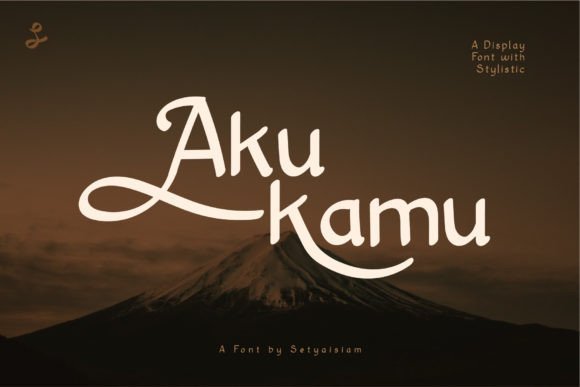
Enter Akukamu Font, a delightful handwritten font designed to add a playful touch to your designs. With its quirky charm and endearing imperfections, this font is perfect for cartoon-related projects, children’s games, or any creation that requires a dash of whimsy. Whether you’re a seasoned designer or a budding artist, Akukamu Font is an invaluable addition to your toolkit, offering endless possibilities for creative expression and bringing your imagination to life.
Akukamu Font Key Features
- Font Family: Akukamu Font offers a unique blend of traditional and modern elements, making it suitable for a wide range of design applications.
- Language Support: Akukamu Font supports a wide range of languages, including Latin, Cyrillic, and Greek alphabets, making it suitable for global design projects.
- Unique Characteristics: The font’s distinctive blend of traditional and modern elements, along with its unique ligatures and swashes, make it stand out in design applications.
A Review of Akukamu Font
I recently had the chance to work with the Akukamu font, and I must say it’s a unique and intriguing addition to any design project. ✨ The font’s bold, geometric shapes and organic feel immediately caught my attention, and I was excited to see how it would perform in various contexts.
- ✨ Unique aesthetic: Akukamu’s blend of geometric and organic elements makes it stand out in a crowded font market.
- ✨ Versatile: The font is suitable for a wide range of projects, from editorial to branding and beyond.
- ✨ High-quality design: The font’s typography is well-designed, with clear and legible letterforms.
- ⚠️ Limited language support: Akukamu currently only supports a limited range of languages, which may be a concern for designers working on multilingual projects.
- ⚠️ Limited font weights: The font is available in a limited range of weights, which may not be sufficient for designers who need more flexibility in their typography.
Akukamu is a bold and eye-catching font that can add a unique touch to any design project. While it has some limitations, its unique aesthetic and versatility make it a great choice for designers looking to push the boundaries of typography. Overall, I’m impressed with the font’s potential, and I look forward to seeing how it evolves in the future.
The Akukamu font is ideal for creative projects, such as:
- Posters and social media graphics